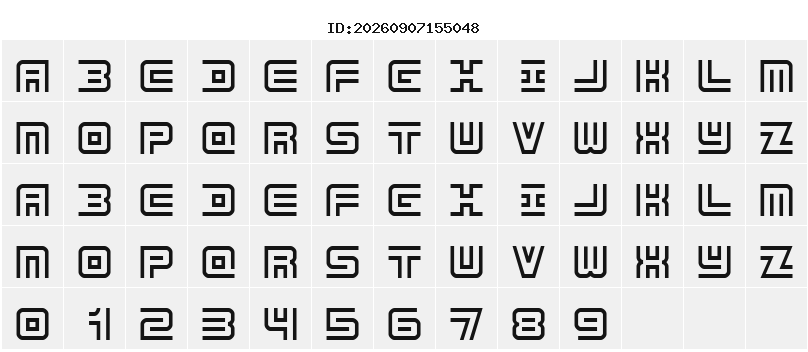
Undercover Preview
• Font Name: Undercover
• Font ID: Undercover
• Full Font Name: Undercover
• PostScript Name: Undercover
• Character Count: 95
About Undercover.ttf
Undercover.ttf is a modern, elegant sans-serif font designed for ultimate readability and visual harmony. Perfect for branding, headlines, web design, and print materials.